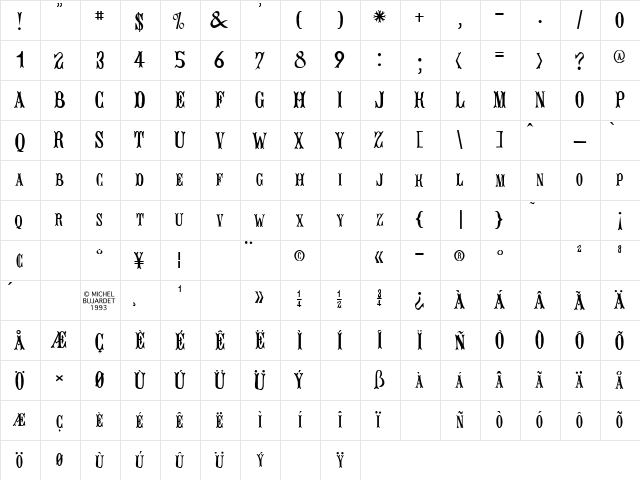
BujardetFreres Regular
| Copyright | V1.1 - ichel Bujardet 1993 - All rights reserved - Cette fonte est inspirdu panneau d'affichage de Bujardet Frs 'exposition universelle de 1900, dont les caracts mtent duverte. |
Design Context for BujardetFreres Typeface
BujardetFreres is a composed and adaptable typeface that performs quietly and consistently across a wide range of design contexts.